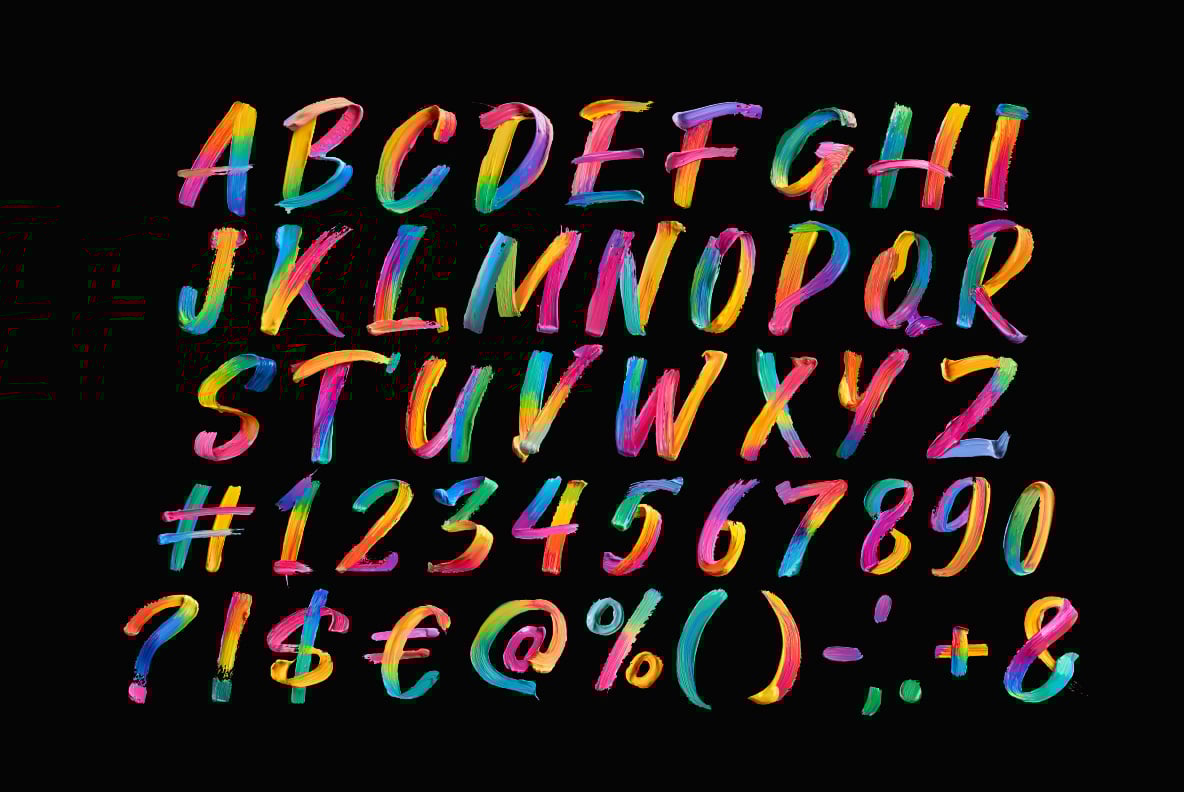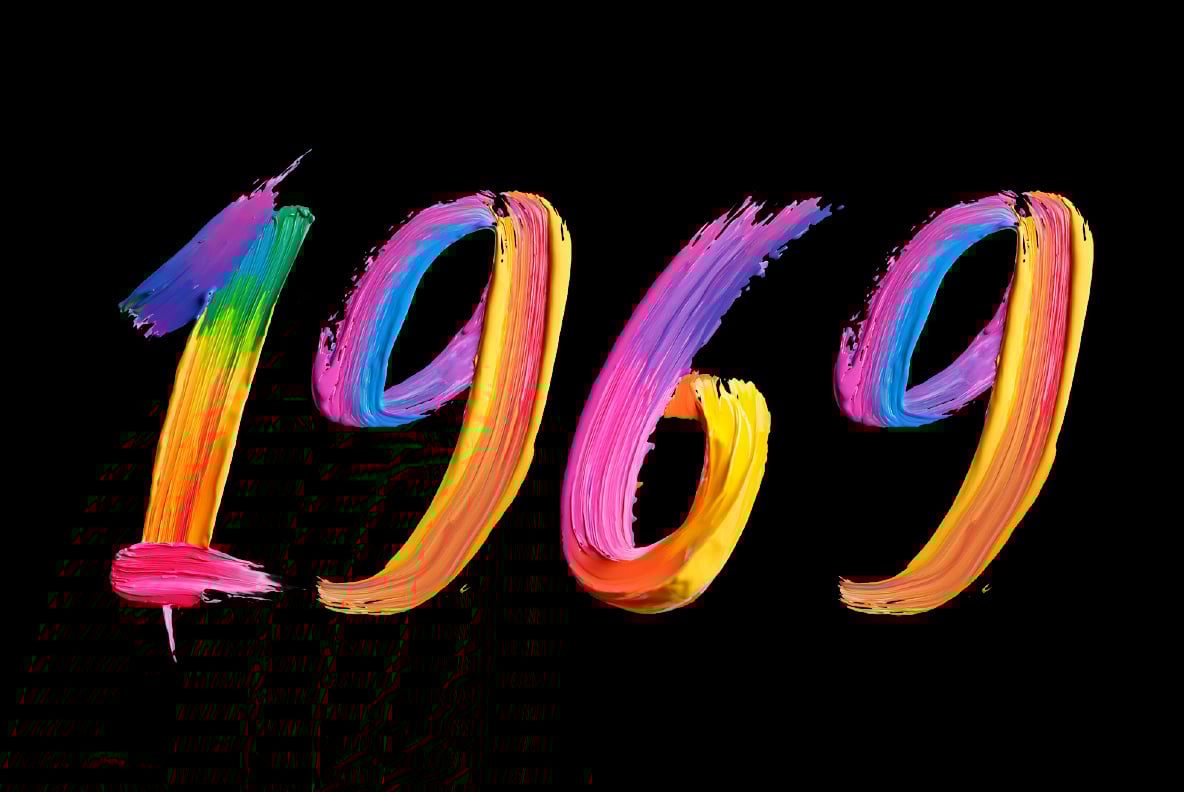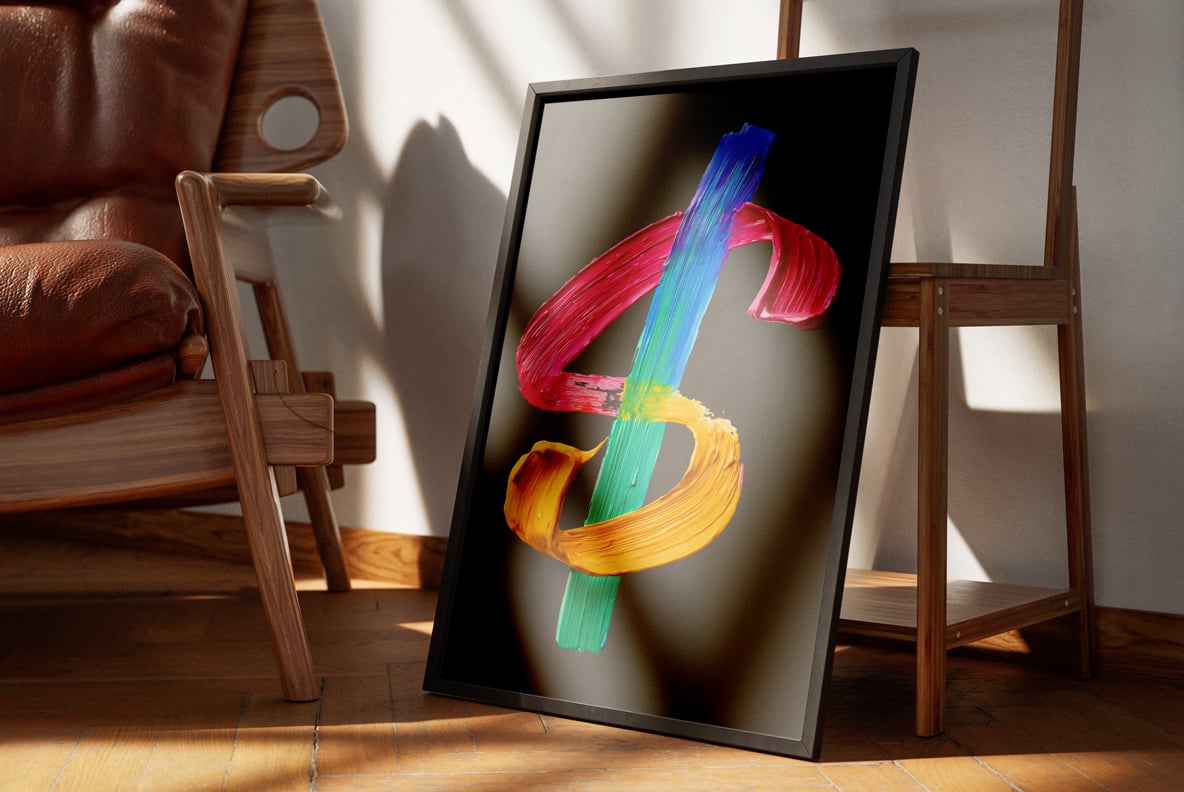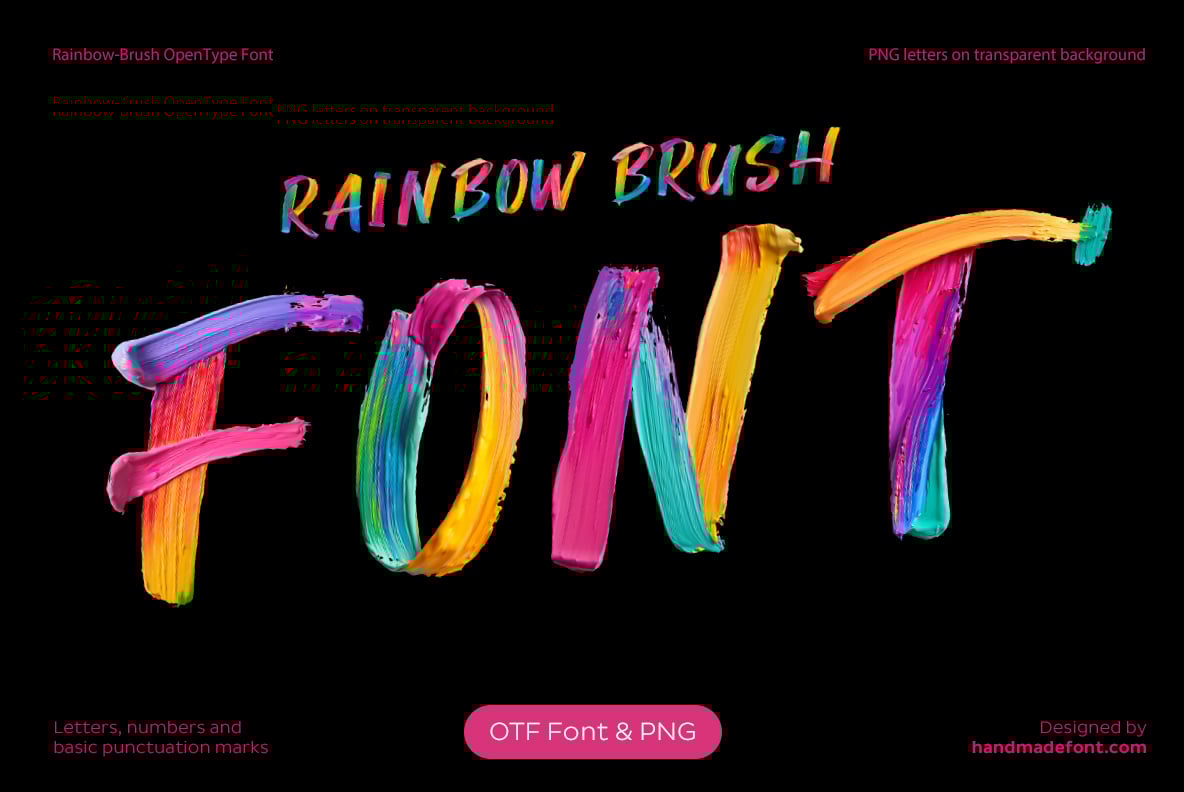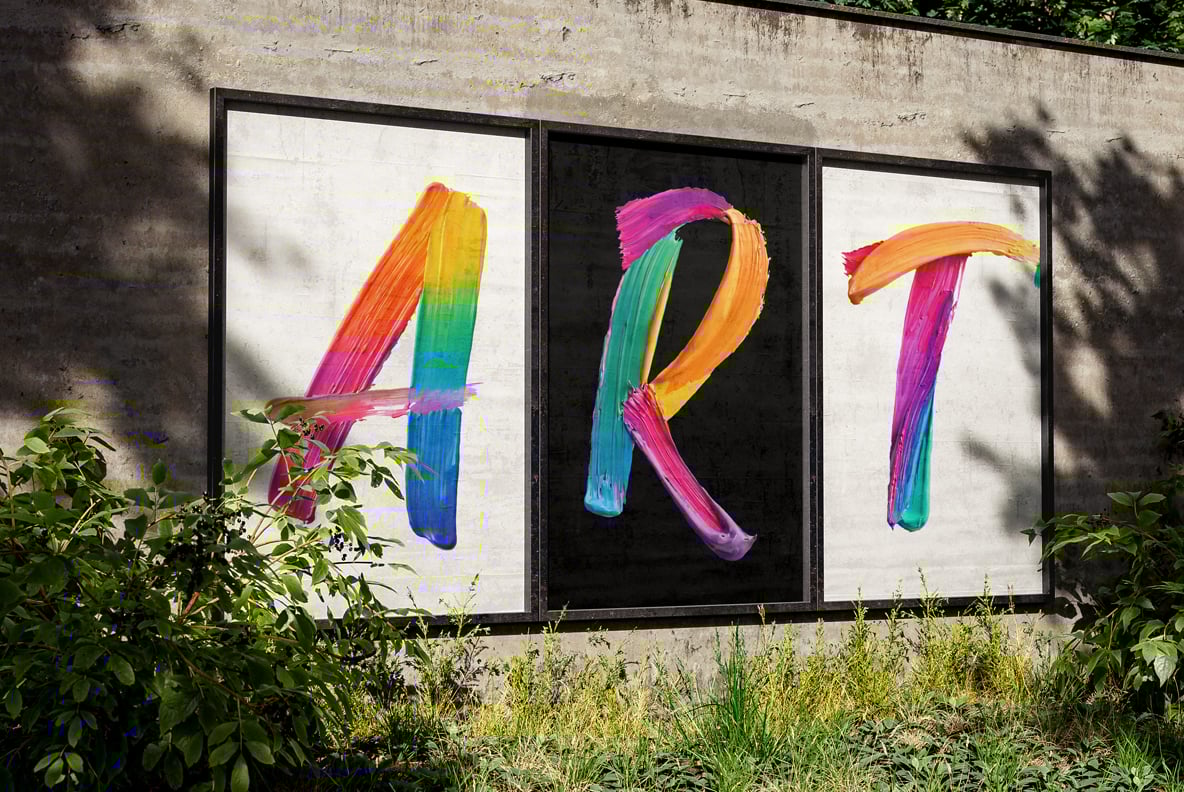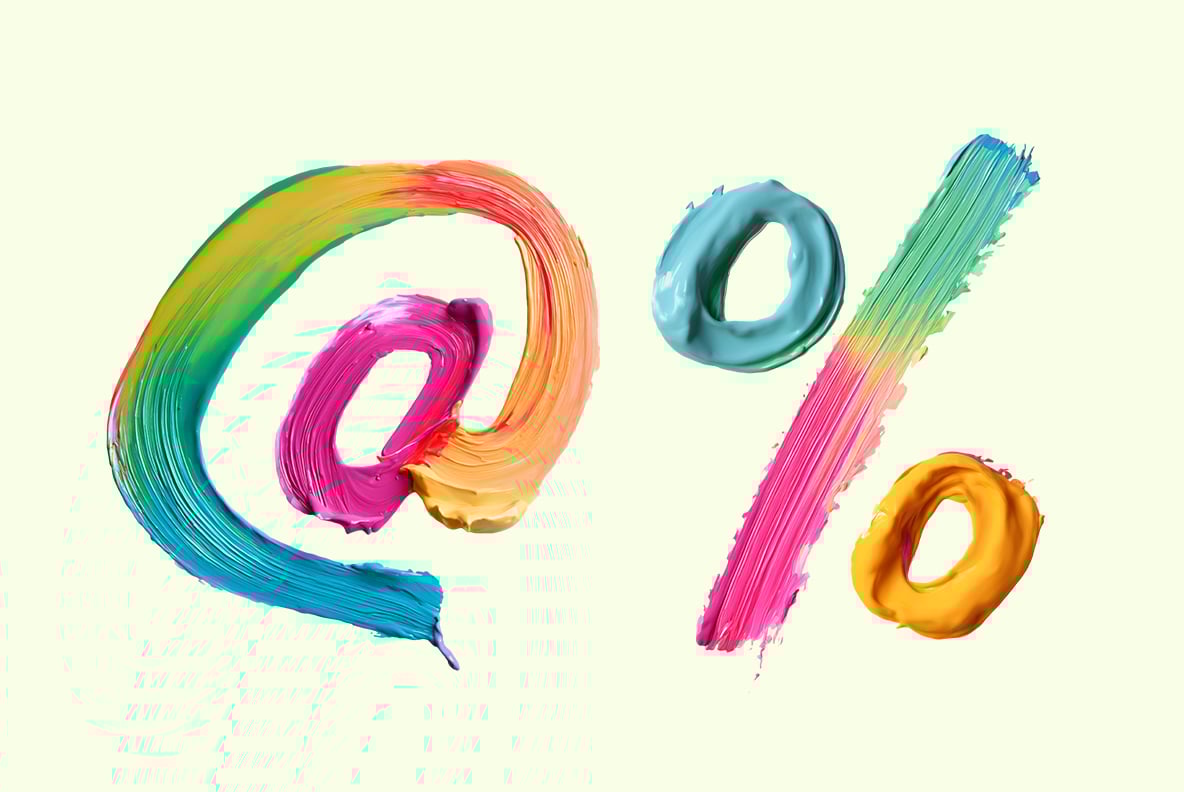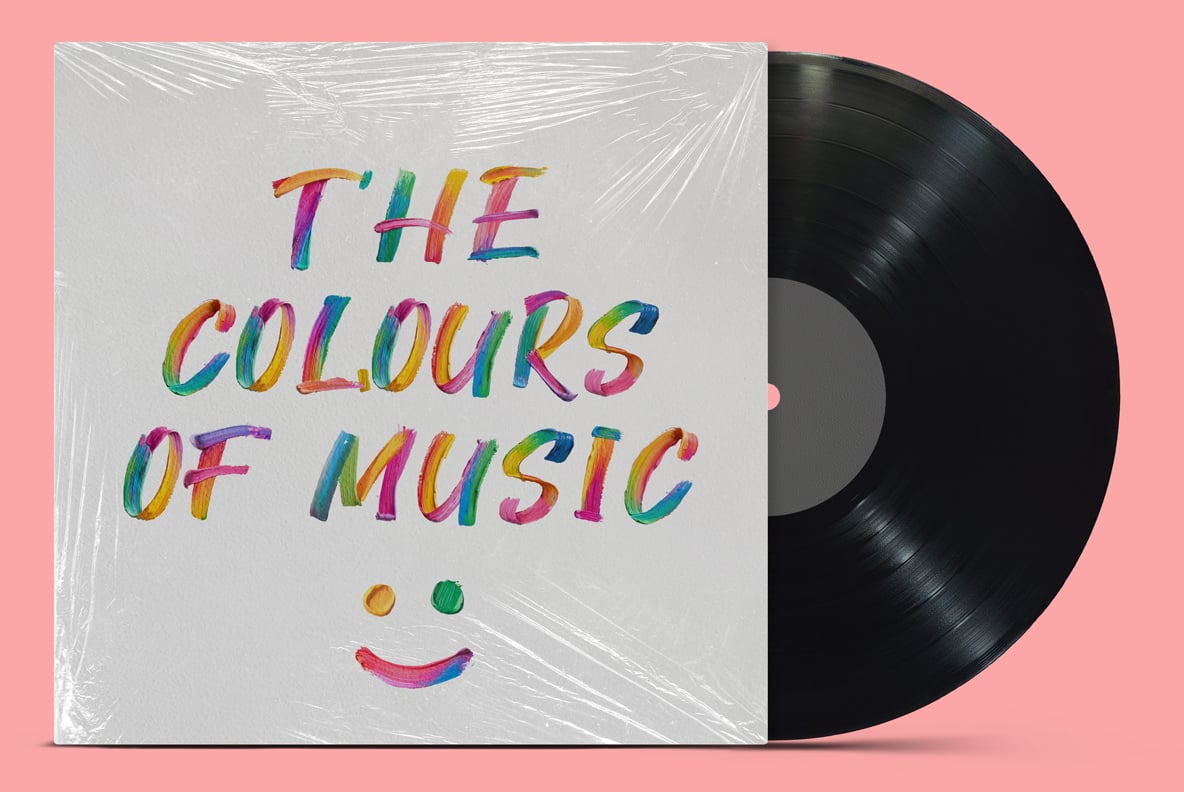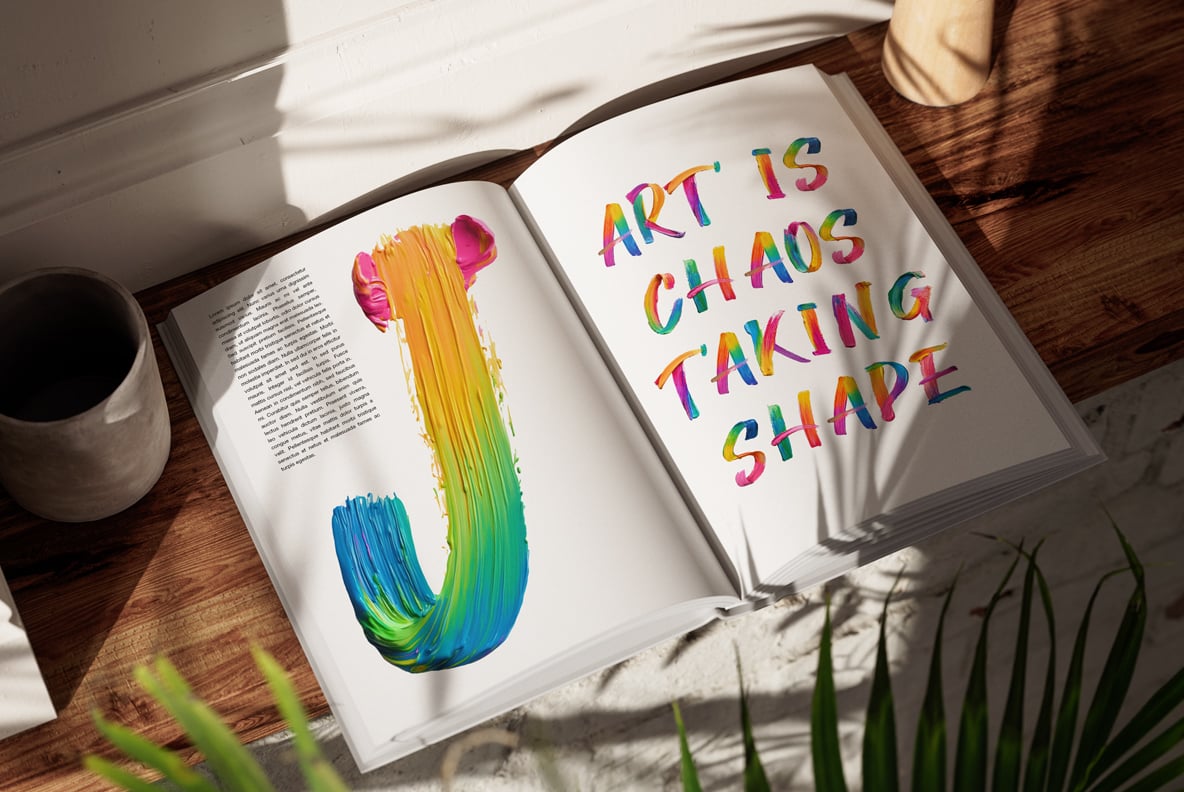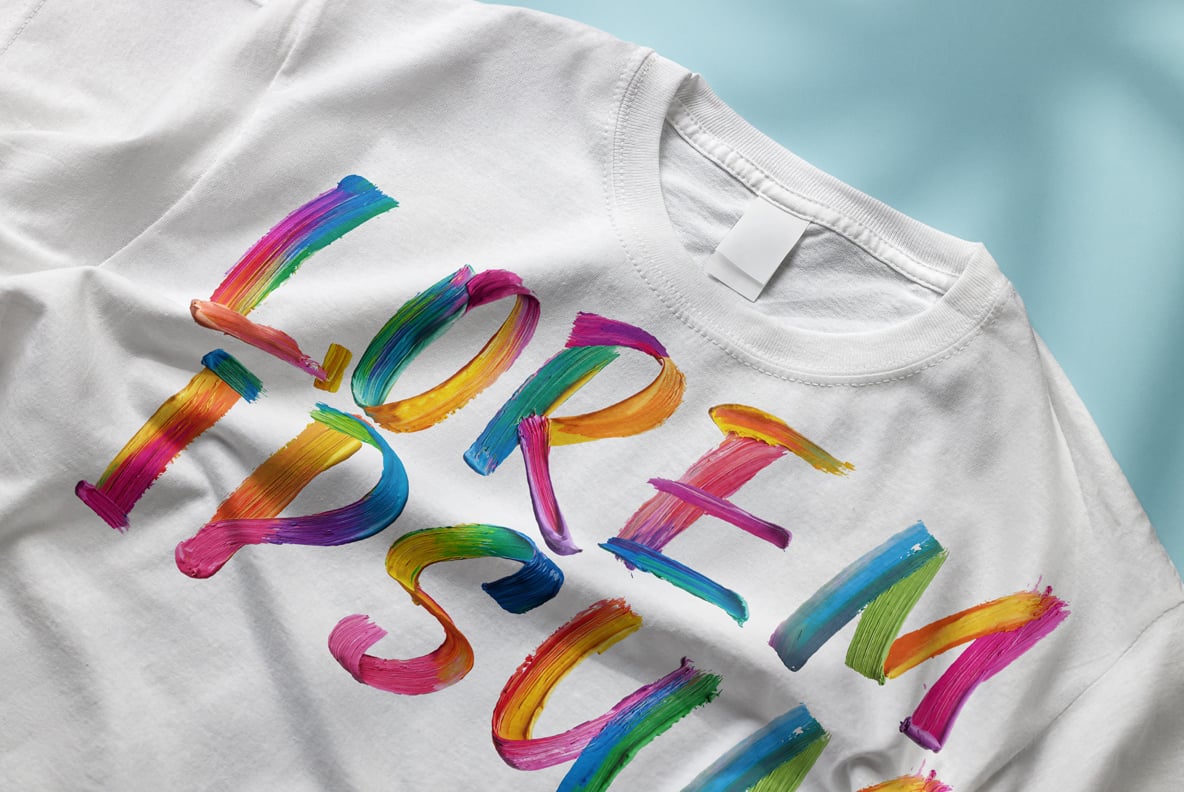
Rainbow Brush Font
Vibrant, messy, and utterly fabulous—Rainbow Brush Font is what happens when a paintbrush throws a party and invites every color imaginable. Each letter drips with dynamic, fluid brushstrokes, blending fiery oranges, electric blues, and juicy pinks into a swirling masterpiece of modern artistry. This isn’t just typography; it’s a full-spectrum explosion of creative energy. Expressive, abstract, and unapologetically bold, this Rainbow-inspired font turns every word into a multicolor spectacle. Perfect for artists, dreamers, and anyone tired of boring black-and-white lettering. Warning: May cause sudden urges to grab a paintbrush and start a creative revolution.
A high definition OpenType Font. Contains uppercase characters, numerals and basic punctuation. (Draw height roughly 800 pixels). All letters and glyphs that comprises this font you can see on the preview.